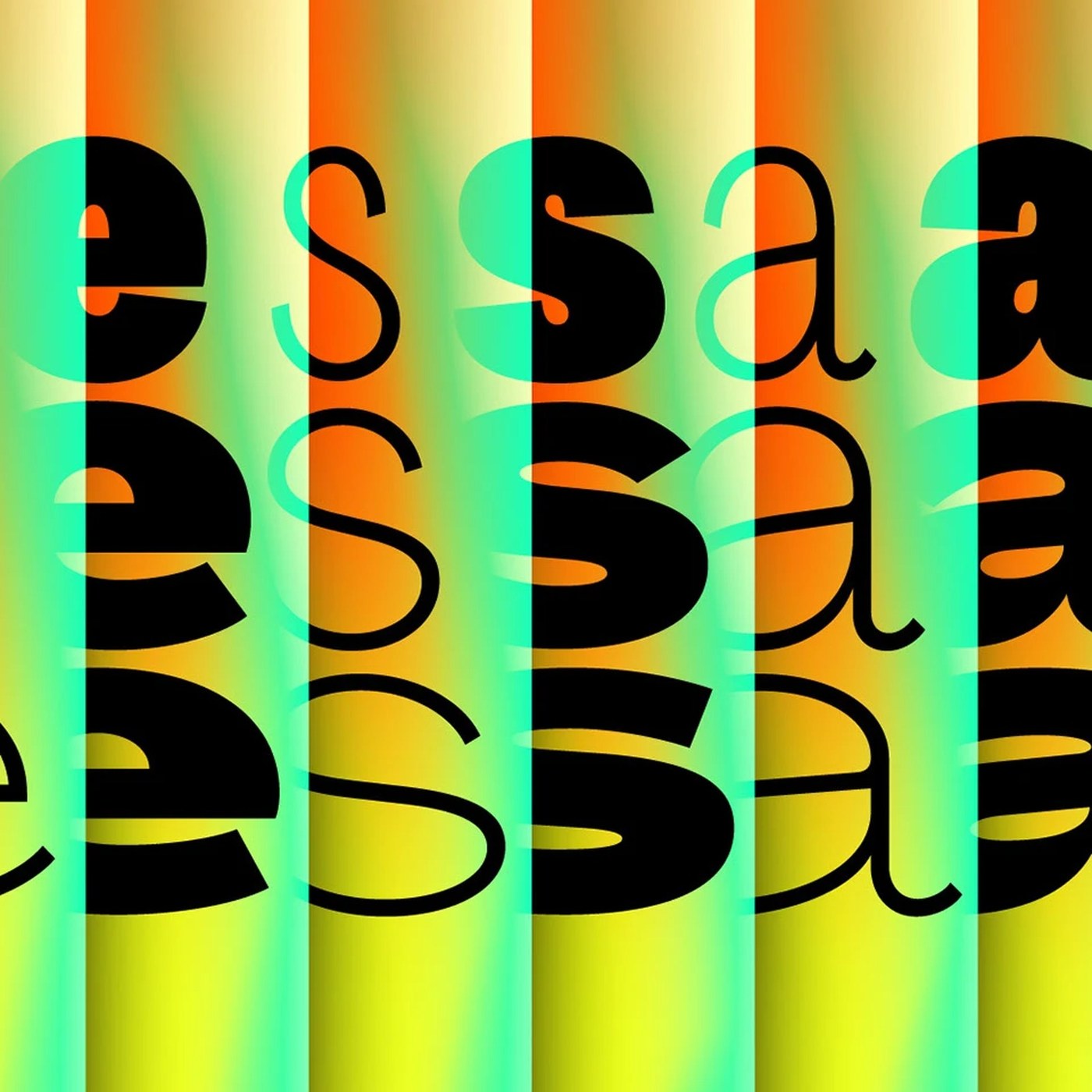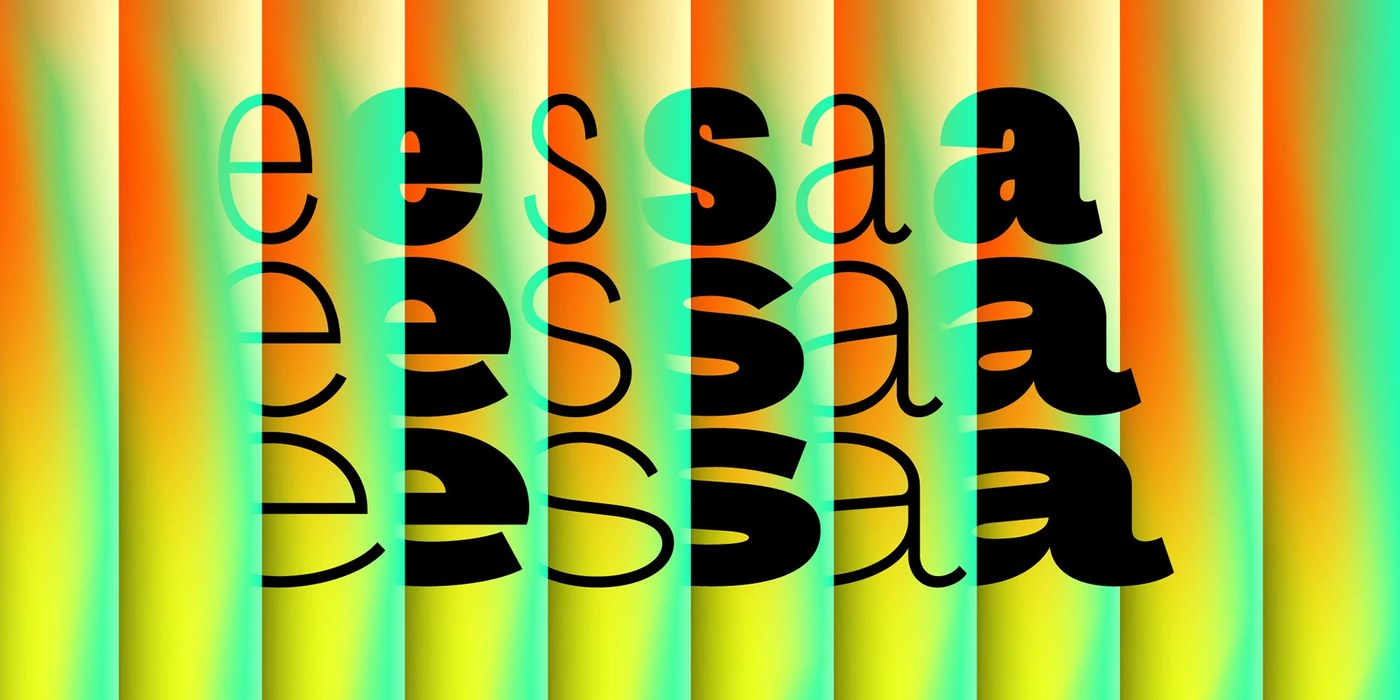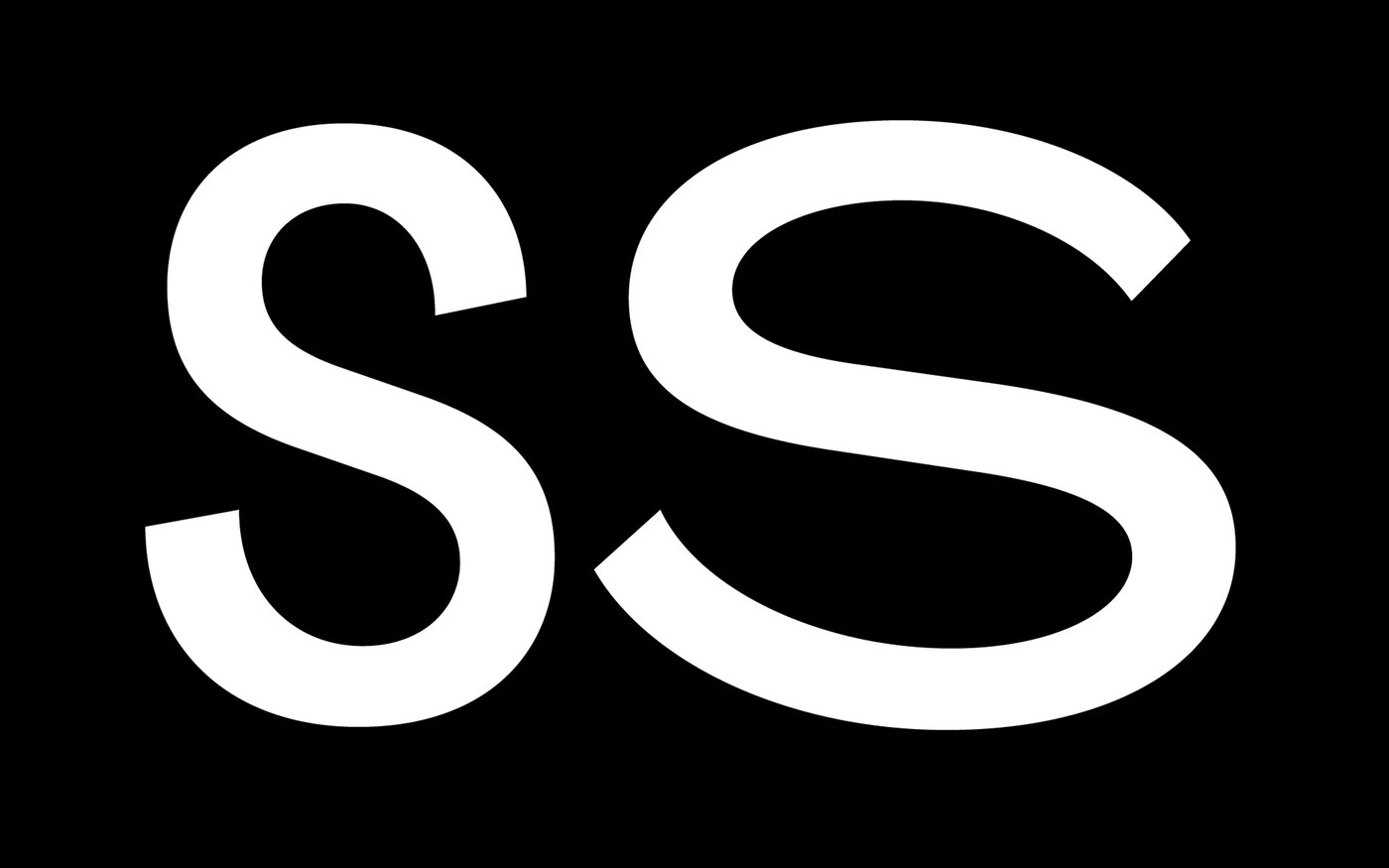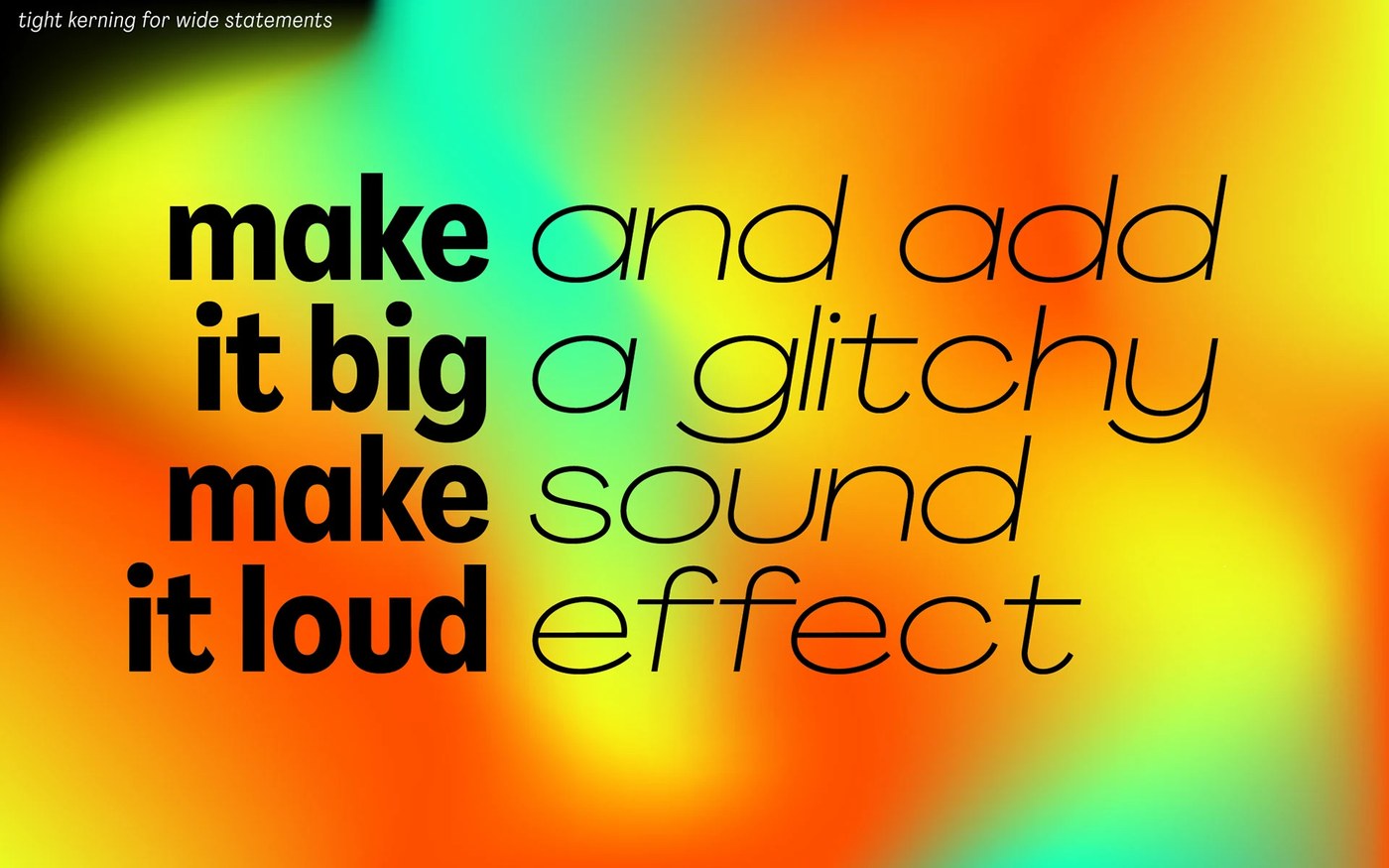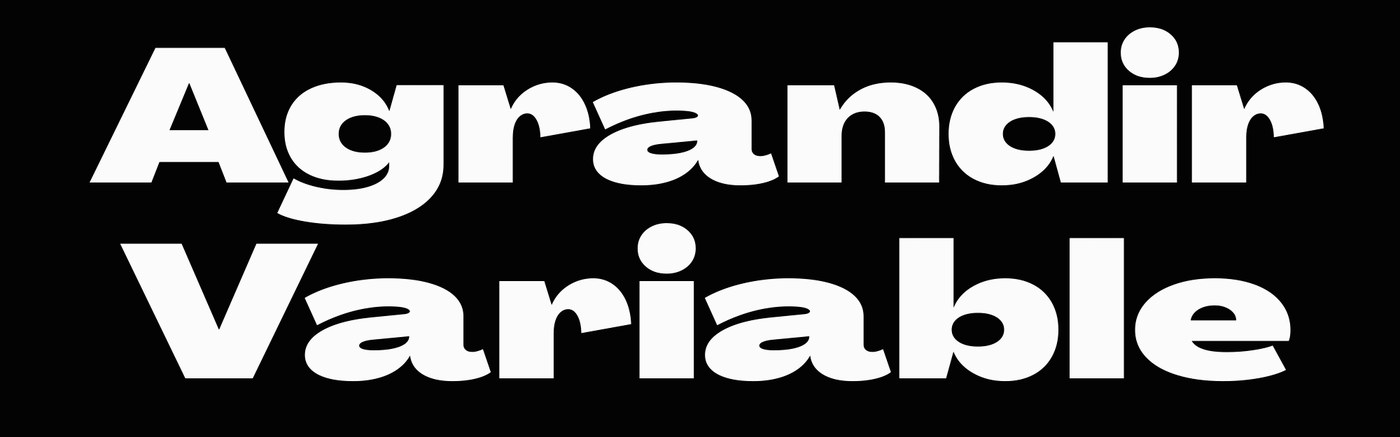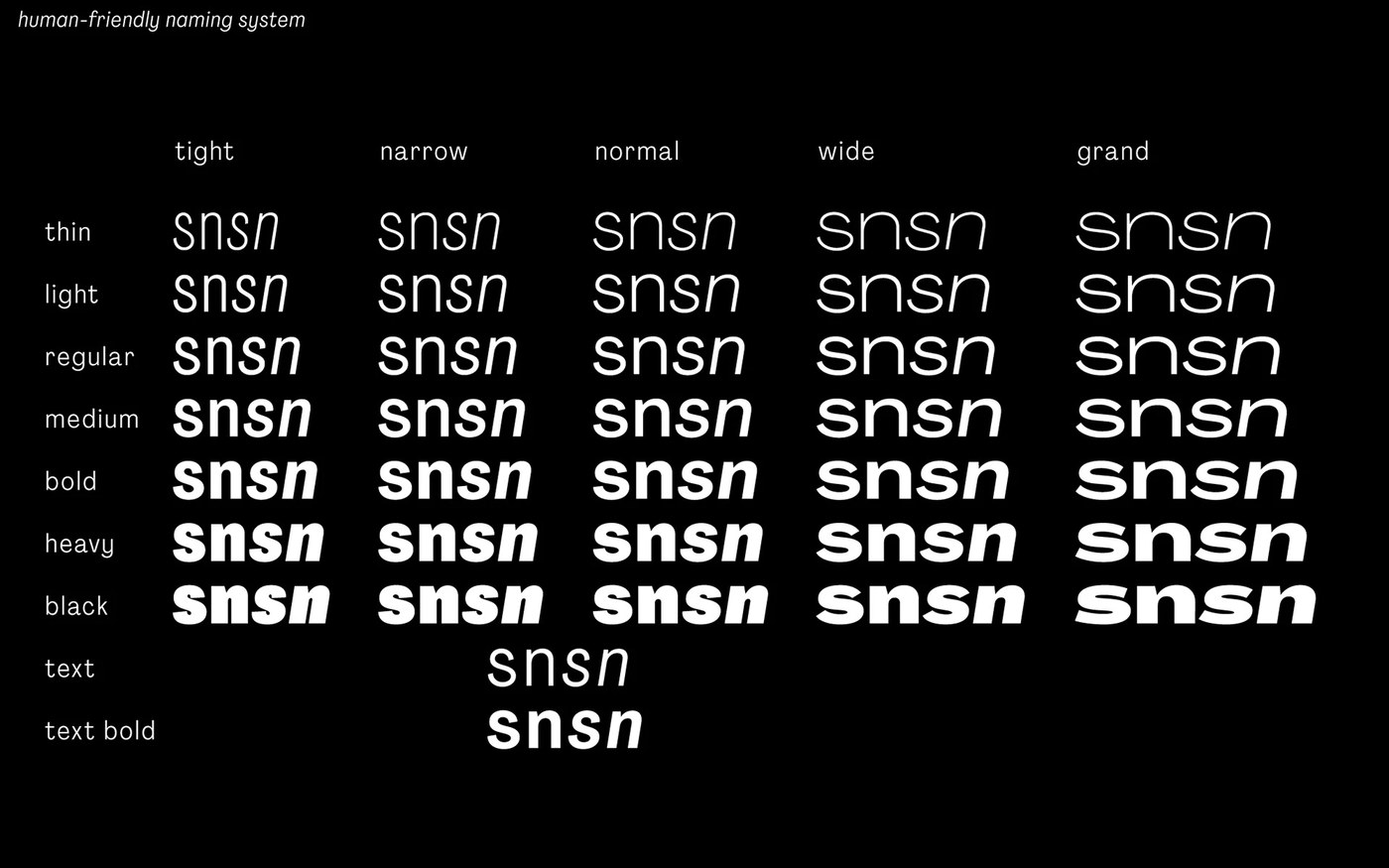
The typographic world is witnessing a significant shift with the introduction and growing prominence of the Agrandir typeface, designed by Alex Slobzheninov. Released on August 7, 2026, this innovative type family actively challenges established modernist conventions by celebrating unaligned letterforms and embracing organic imperfections. Agrandir, with its robust system of seventy-four fonts and comprehensive variable axis options, offers designers unparalleled flexibility for crafting dynamic and expressive layouts, positioning itself as a critical tool for contemporary digital branding, large-format displays, and editorial applications. Its core philosophy, prioritizing humanistic expression over rigid machine precision, marks a notable evolution in the discourse surrounding digital type design.
The Genesis of Agrandir: A Rejection of Modernist Dogma
Alex Slobzheninov, a designer known for his unconventional approach to typography, conceived Agrandir as a deliberate counterpoint to the prevailing modernist principles that have long dictated type design. For decades, the pursuit of geometric perfection, uniform weight distribution, and precise alignment has been the benchmark for typefaces intended for legibility and neutrality. Agrandir, however, fundamentally rejects these tenets. Slobzheninov’s vision was to create a typeface that possesses an inherent "quirkiness," where every glyph features intentionally unaligned weight distributions. This departure from conventional symmetry is not a flaw but a foundational design choice, imbuing the typeface with a distinct character and a sense of organic vitality. The design philosophy behind Agrandir posits that such "imperfections" resonate more deeply with human perception, offering a visual experience that feels authentic and less sterile than perfectly engineered typefaces. This approach taps into a broader cultural movement valuing individuality and expressive freedom, reflecting a desire for design tools that can communicate more nuanced emotions and brand identities.
Technical Prowess: Variable Font Capabilities and Expansive Options
At the heart of Agrandir’s utility lies its advanced implementation of variable font technology. This allows for continuous interpolation between different design masters, giving users unprecedented control over typographic attributes. The Agrandir system boasts seventy-four distinct fonts, providing a vast palette for designers. Crucially, its variable axis options enable seamless adjustments to both width and weight, allowing for granular control that traditional static font families cannot match. This flexibility means a designer can fine-tune a character’s appearance along a spectrum rather than being limited to predefined styles like "light," "regular," or "bold."
A distinguishing feature of Agrandir is its integration of "always-thin" elements. These delicate strokes or terminals within the glyphs create a compelling visual contrast against the otherwise robust forms, effectively guiding the viewer’s eye and adding a layer of sophisticated detail. This contrast is not merely aesthetic; it contributes to the typeface’s dynamic rhythm and legibility, particularly in display settings. Furthermore, Agrandir includes geometric presets that can "spice up layouts," offering quick access to specific stylistic variations or predefined aesthetic profiles, streamlining the design process while maintaining creative control. The comprehensive nature of its variable axes ensures that designers can generate unique style sets tailored precisely to project requirements, from subtle adjustments for body text to dramatic transformations for impactful headlines.
Applications and Impact: Shaping Digital Branding and Display Media
The unique characteristics of the Agrandir typeface make it exceptionally well-suited for a range of contemporary design applications. Its inherent dynamism and expressive quality lend themselves particularly to digital branding, where distinctiveness and memorability are paramount. Brands seeking to convey innovation, creativity, or a non-conformist attitude can leverage Agrandir to craft a unique visual voice. The ability to finely tune width and weight, combined with its quirky unaligned forms, allows for the creation of logos, website headlines, and social media graphics that stand out in a crowded digital landscape.
Beyond digital interfaces, Agrandir excels in large-format displays such as posters, billboards, and exhibition graphics. The "tight spacing" that makes headlines look "tense" creates a powerful visual impact, drawing immediate attention. In these contexts, the organic details of the glyphs become more apparent, engaging viewers on a more visceral level. The typeface’s rejection of machine precision in favor of humanistic details ensures that even at massive scales, the design retains an approachable, handcrafted feel. Its robust language support further extends its utility, enabling global brands and multilingual publications to maintain a consistent yet expressive typographic identity across diverse cultural and linguistic contexts. This broad applicability underscores its potential to influence design trends across various sectors, from fashion and arts to technology and editorial content.
Industry Reception and Critical Acclaim
Upon its release and subsequent showcasing, Agrandir quickly garnered attention within the design community. Early feedback from critics and design practitioners has been overwhelmingly positive. The typeface is frequently praised for its courage in challenging typographic norms and its successful execution of a complex design vision. Reviewers often highlight its distinctive aesthetic, which manages to be both striking and functionally versatile. The seamless interplay between its "quirky shapes" and sophisticated variable font technology is a recurring point of commendation.
Design forums and industry publications have noted that Agrandir’s "layout breathes nicely," a testament to Slobzheninov’s careful attention to detail despite the intentional "unaligned" nature of the forms. This indicates that while unconventional, the typeface maintains a high degree of legibility and visual harmony, crucial for its adoption in professional settings. The project has been acknowledged for its contribution to the ongoing evolution of expressive typography, solidifying Alex Slobzheninov’s reputation as a trailblazer in the field. The ease with which designers can experiment with its numerous stylistic options and generate unique outcomes further contributes to its positive reception, empowering creatives to push the boundaries of visual communication.
The Broader Typographic Landscape: Agrandir in Context
Agrandir’s emergence is not an isolated event but rather a significant marker in the broader evolution of type design. The past decade has seen a rapid advancement in font technology, with variable fonts leading the charge. Pioneered by companies like Adobe, Google, and Apple, variable font technology allows a single font file to contain an infinite range of stylistic variations, reducing file size and increasing design flexibility. Agrandir leverages this technology to its fullest, showcasing how it can be used not just for subtle adjustments but for radical stylistic expression.
Historically, typography has oscillated between periods of rigid classicism and more expressive, humanistic movements. The modernist era, with its emphasis on rationality, grid systems, and functionalism, led to the development of many iconic sans-serif typefaces that prioritized clarity and neutrality. However, contemporary design, particularly in the digital realm, is increasingly moving towards a post-modern sensibility that embraces eclecticism, personality, and even deliberate imperfection. Agrandir fits perfectly within this trend, offering a typeface that celebrates individuality and breaks free from the constraints of perceived "correctness." It stands alongside other experimental typefaces that explore fluid forms, kinetic typography, and algorithmic generation, all contributing to a richer, more diverse typographic ecosystem. This movement reflects a desire among designers and brands to create more authentic, memorable, and emotionally resonant connections with audiences in an increasingly visual and fast-paced world.
Conclusion: A Forward-Looking Typographic Statement
The Agrandir typeface by Alex Slobzheninov represents more than just a new font family; it embodies a philosophical statement about the future of typography. By deliberately eschewing modernist rules and championing humanistic imperfection, it provides designers with a potent instrument for expressive communication in an increasingly digital and visually saturated world. Its advanced variable font capabilities, combined with a distinct aesthetic, position it as a trailblazer that will undoubtedly influence subsequent type designs and branding strategies. As the design industry continues to evolve, prioritizing authenticity and dynamic engagement, typefaces like Agrandir will play a crucial role in shaping how messages are perceived and how brands connect with their audiences. It stands as a testament to the enduring creativity and innovation within the field of type design, inviting designers to download and explore its unique stylistic variety to craft truly custom and impactful visual experiences.